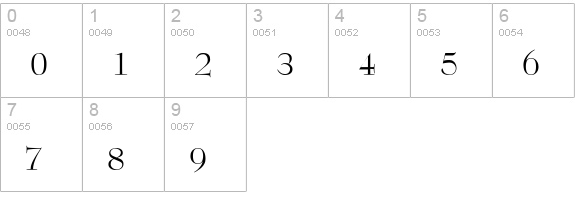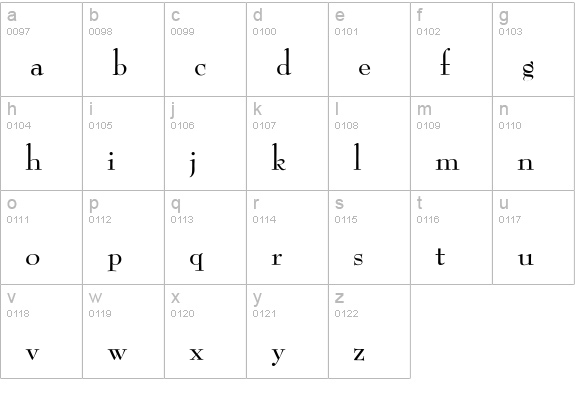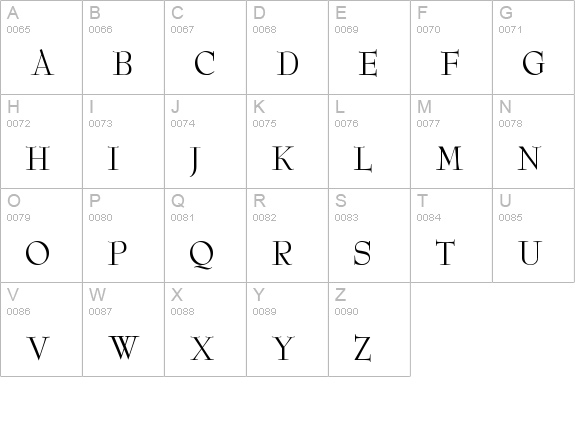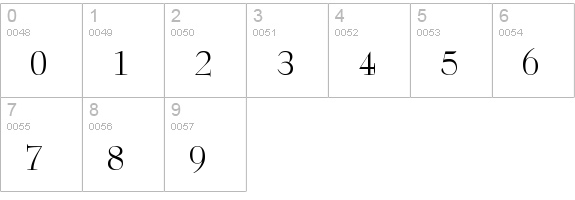
Reed-Normal is the standard, neutral variant in the Reed typeface family \xE2\x80\x94 well suited to general body text, paragraphs, and standard typographic work.
Introducing Reed-Normal, a stunningly versatile font that effortlessly combines elegance with modernity. This captivating typeface boasts a timeless appeal, making it the perfect choice for a wide range of creative projects. Whether you're designing a logo, crafting an eye-catching poster, or creating a visually striking website, Reed-Normal is sure to leave a lasting impression. What sets Reed-Normal apart is its seamless balance between sophistication and accessibility. The clean lines and well-defined curves give this font a sleek and contemporary look, while the subtle intricacies add a touch of refinement. It effortlessly captures attention without overwhelming the viewer, making it ideal for both professional and personal use. But what truly makes Reed-Normal stand out is its availability as a free download. Yes, you read that right – this remarkable font is freely available to download at FontsMarket.com. Now you can enjoy the benefits of this exceptional typeface without any cost, allowing you to bring your creative visions to life without breaking the bank. With Reed-Normal, the possibilities are endless. Its versatility makes it compatible with a wide range of design styles, from minimalist to ornate, ensuring that it seamlessly integrates into any project. Its legibility remains intact even at smaller sizes, making it suitable for various mediums such as print, digital, and mobile. So why wait any longer? Experience the beauty and functionality of Reed-Normal today by downloading it for free at FontsMarket.com. Unleash your creativity and elevate your designs with this remarkable font that effortlessly combines elegance and modernity. Get ready to make a lasting impression with Reed-Normal.